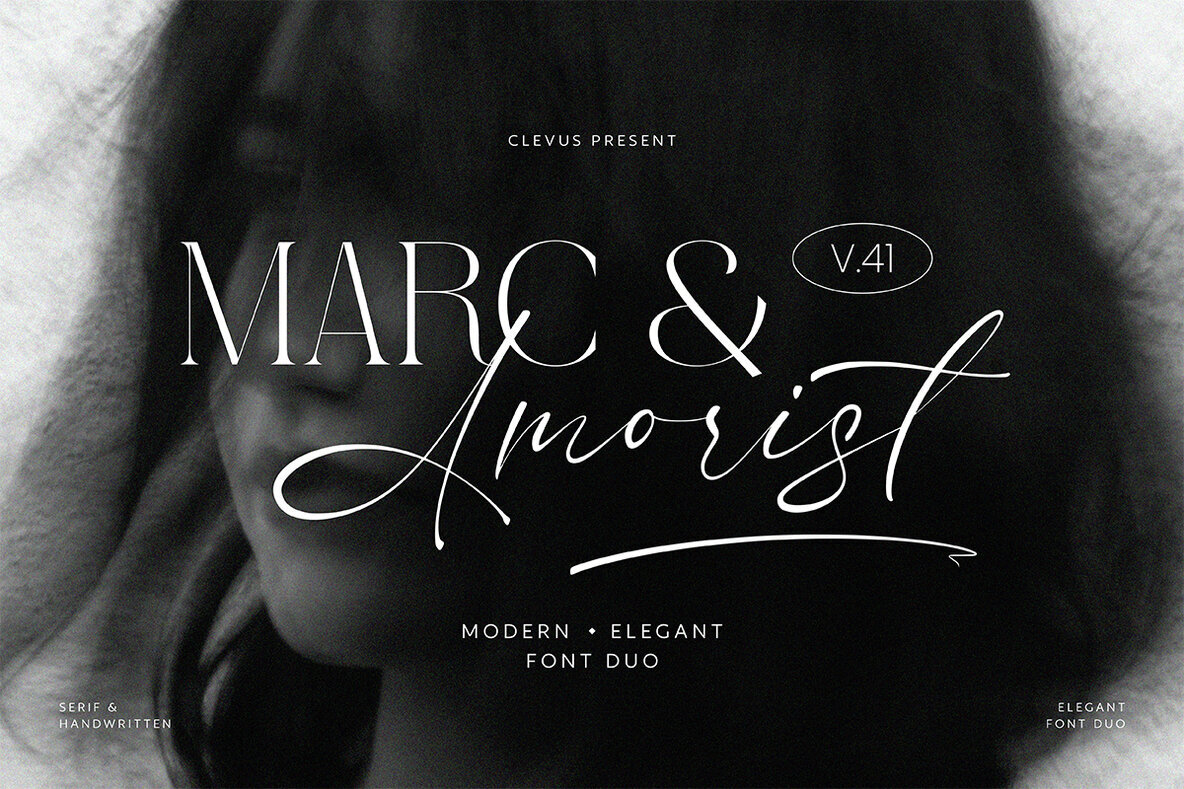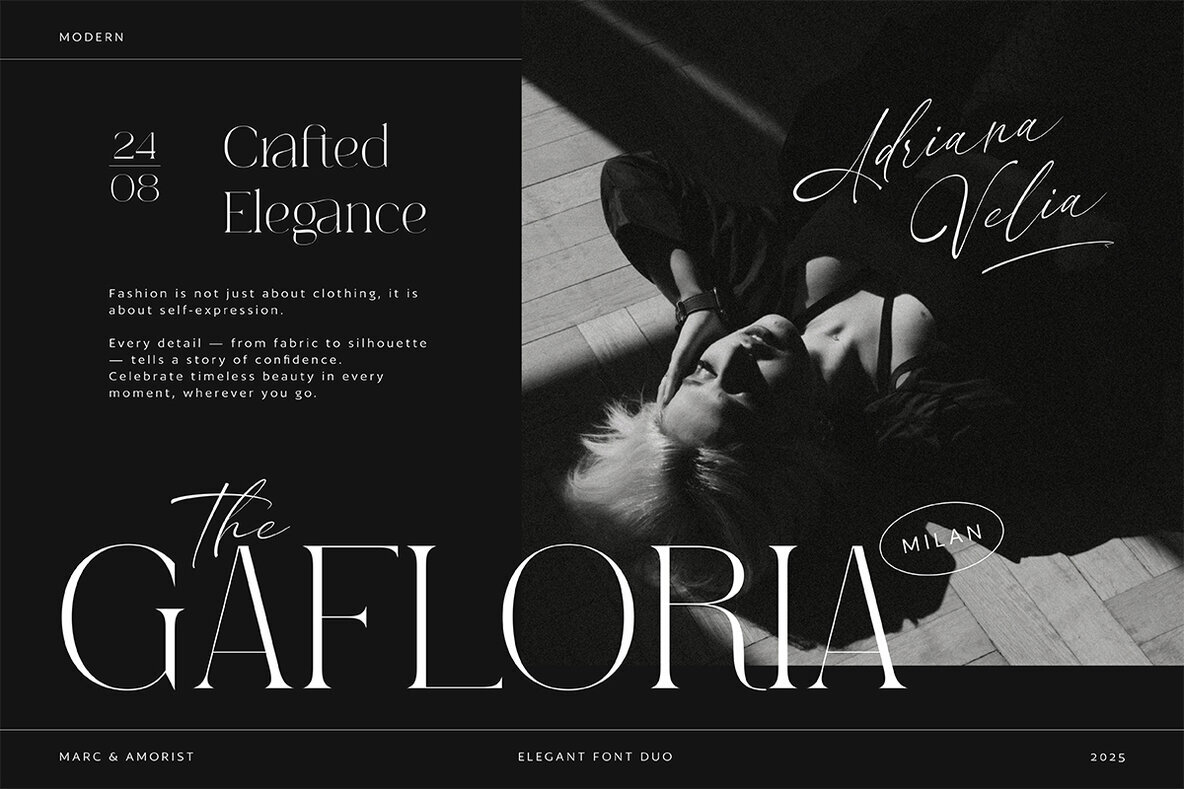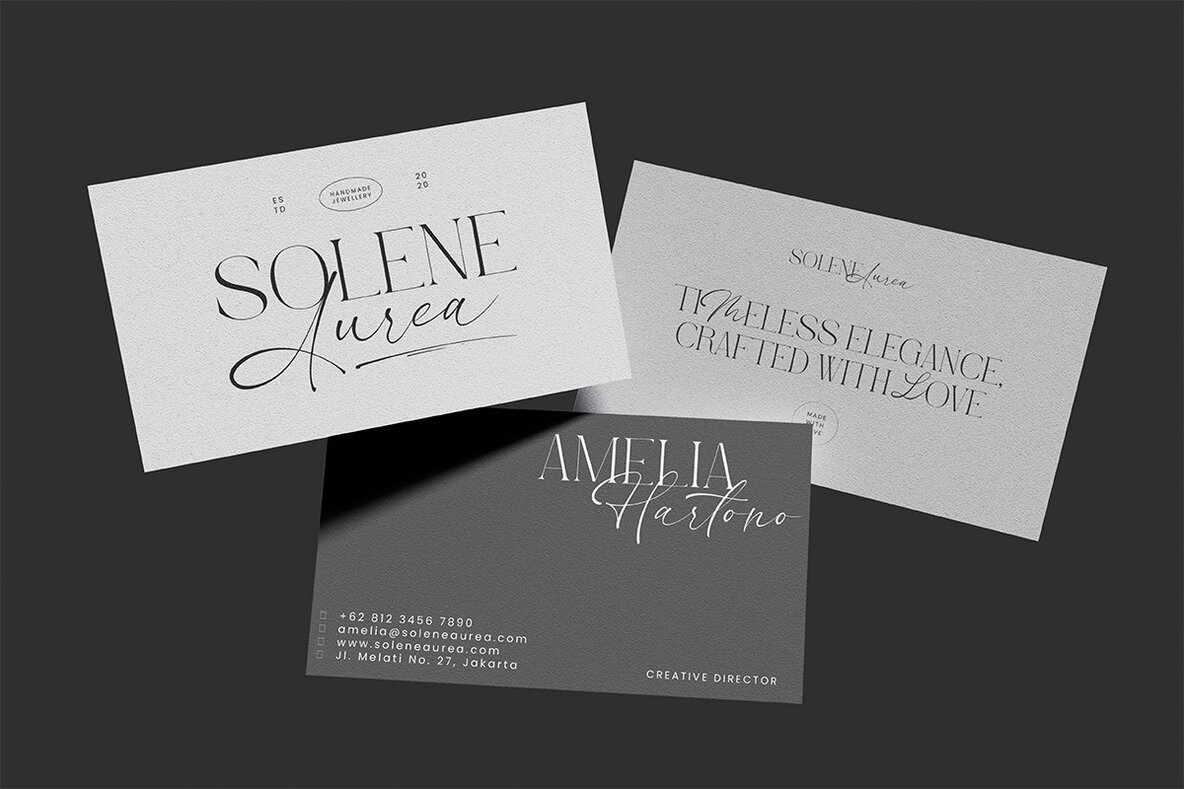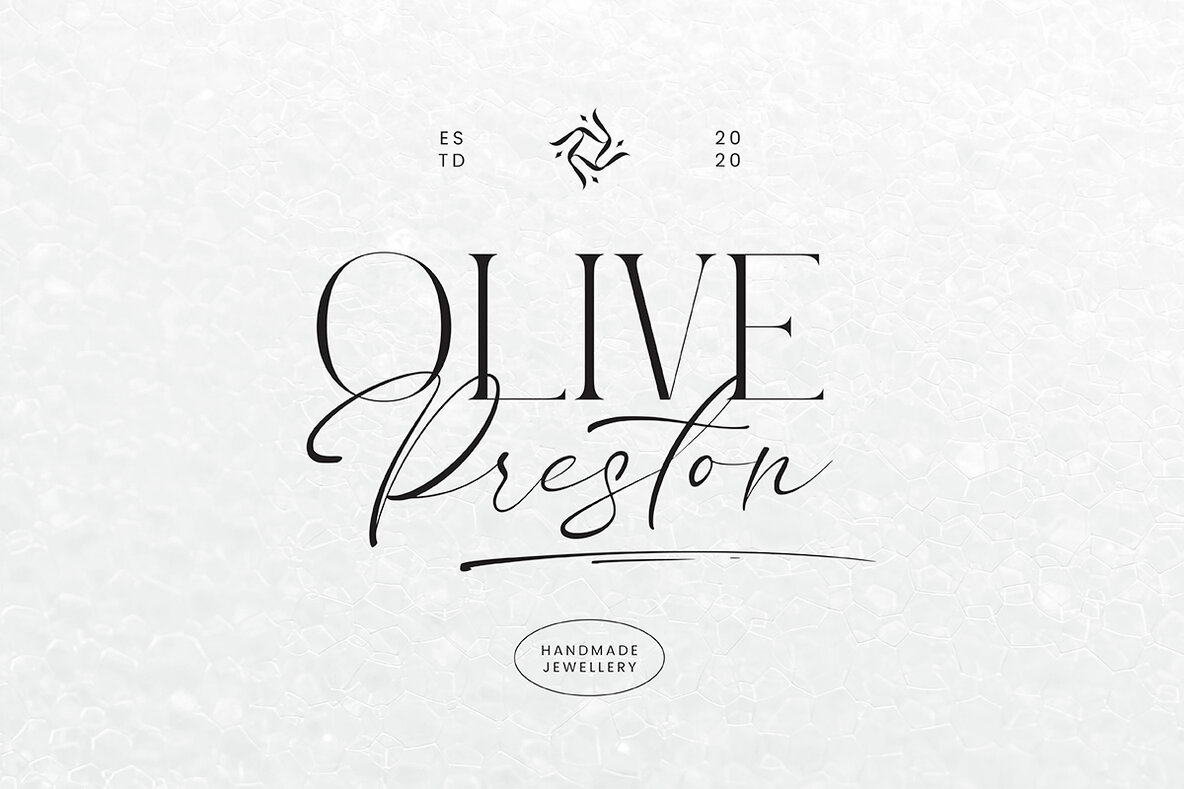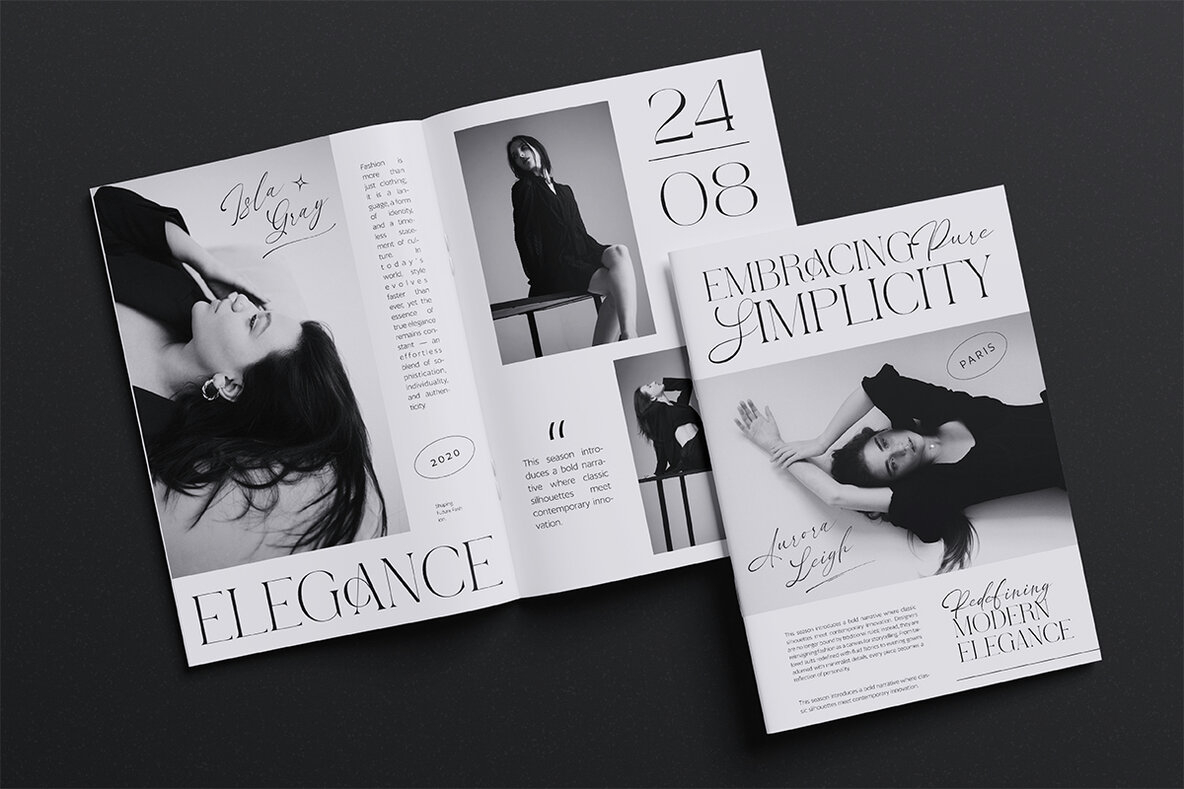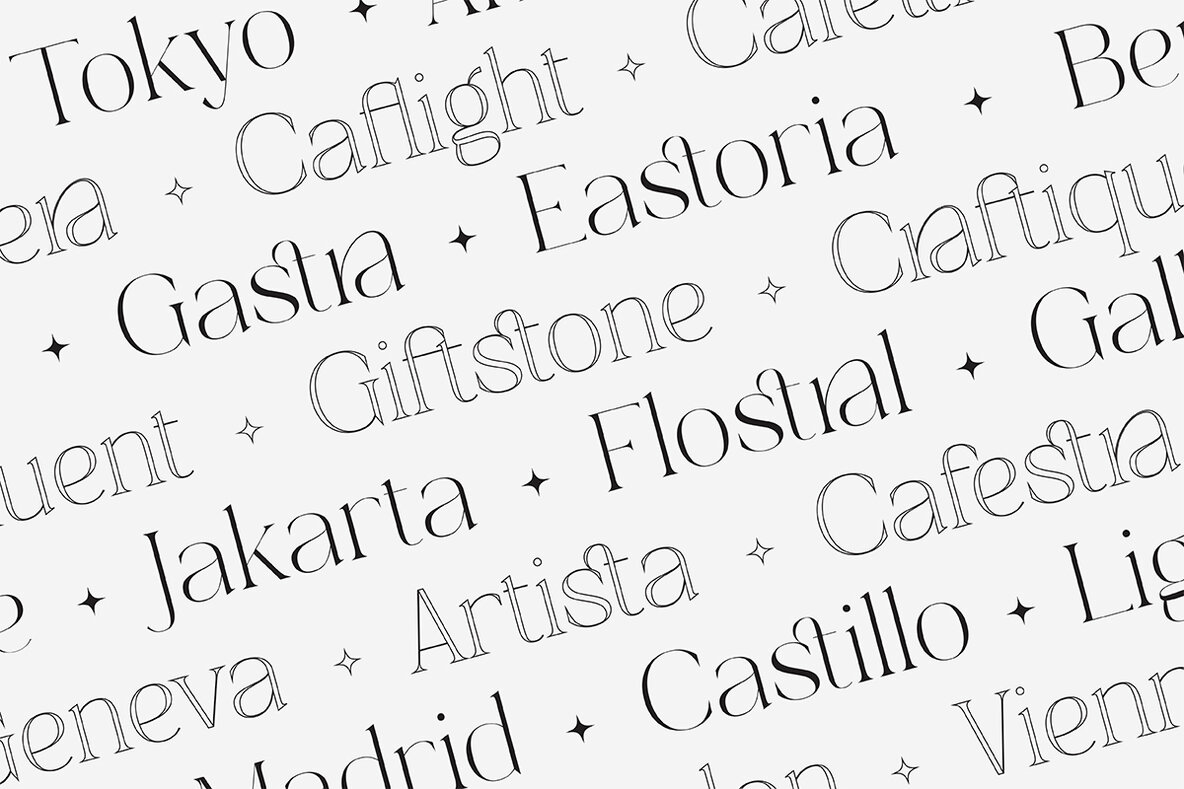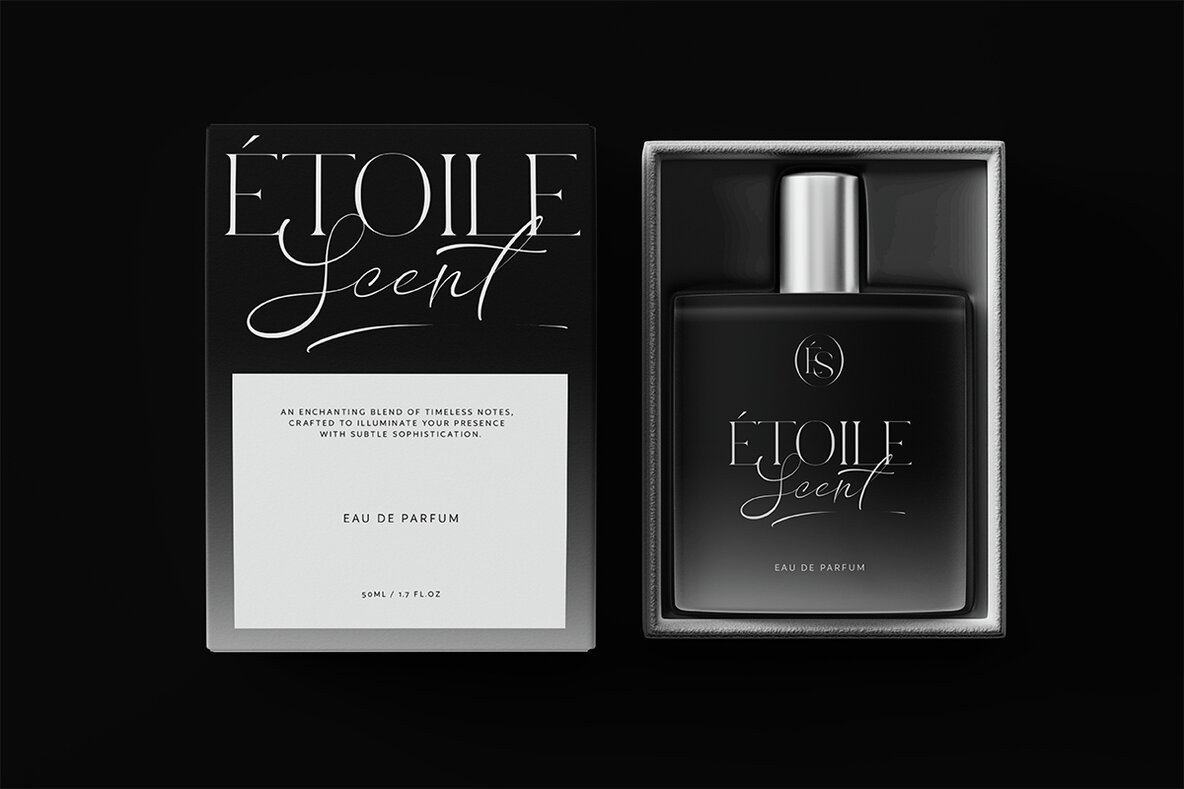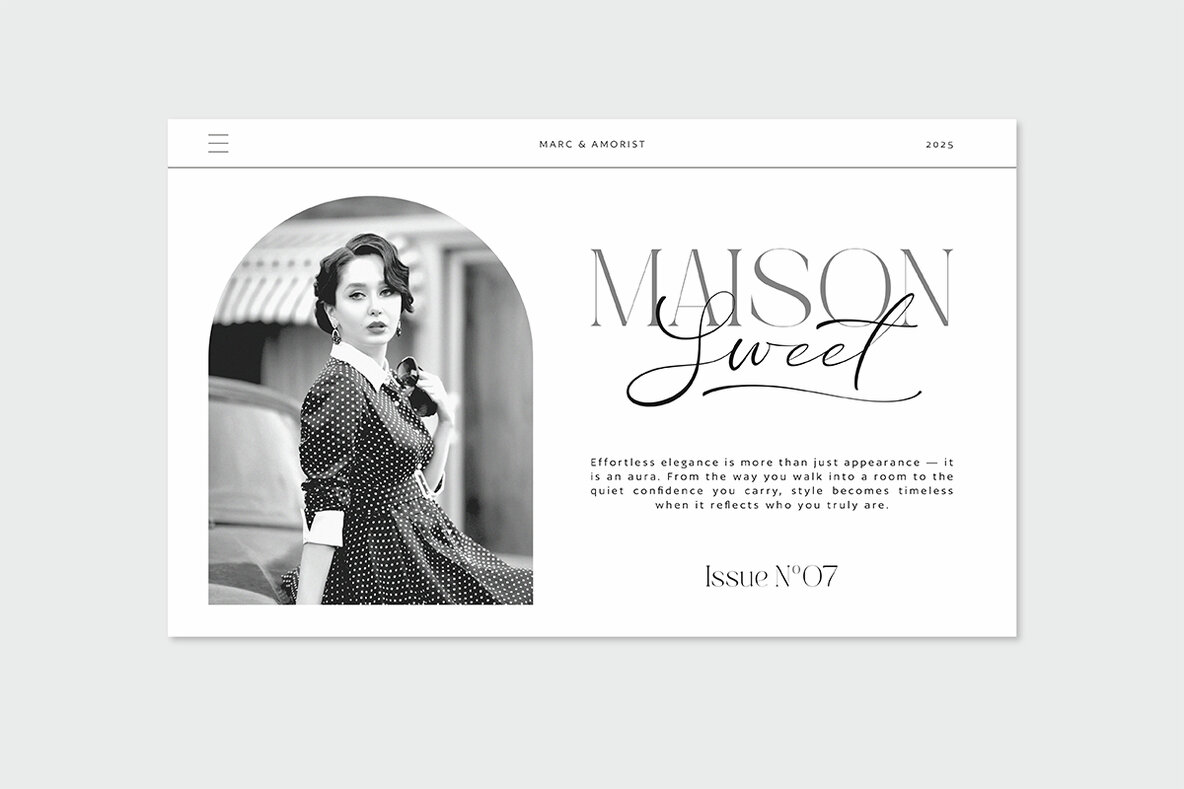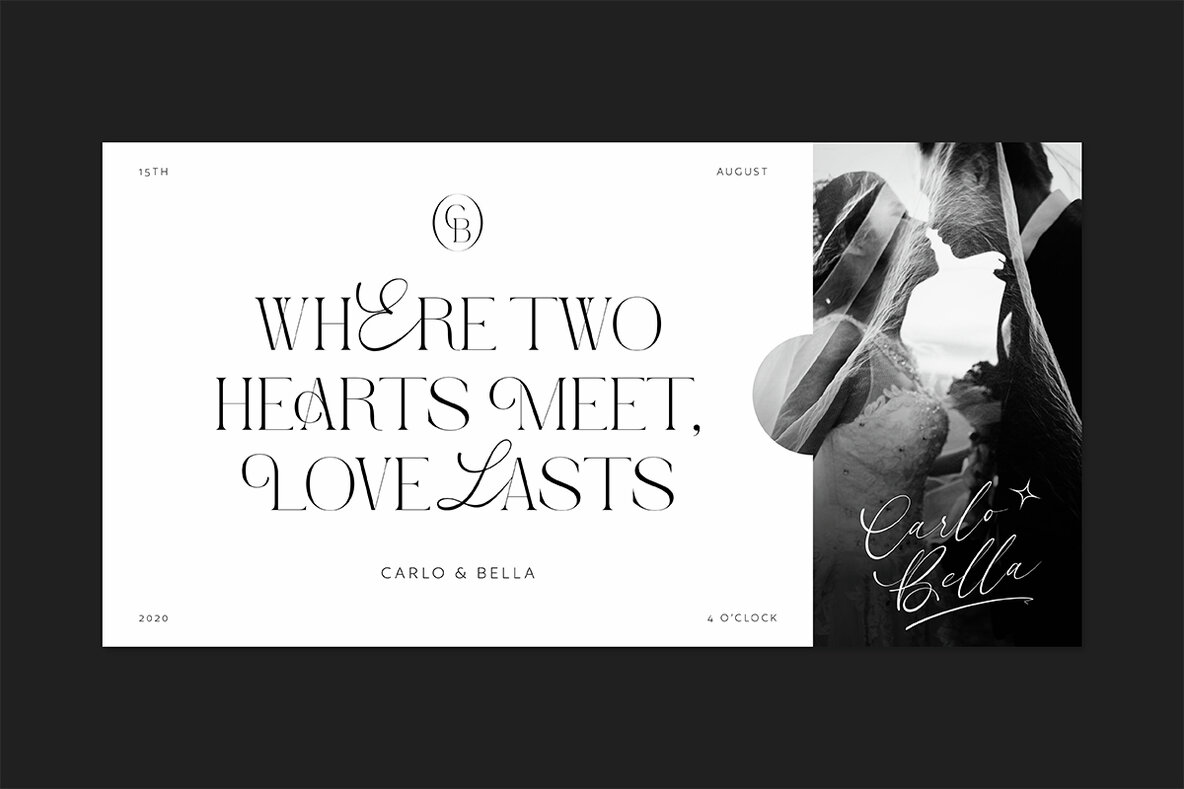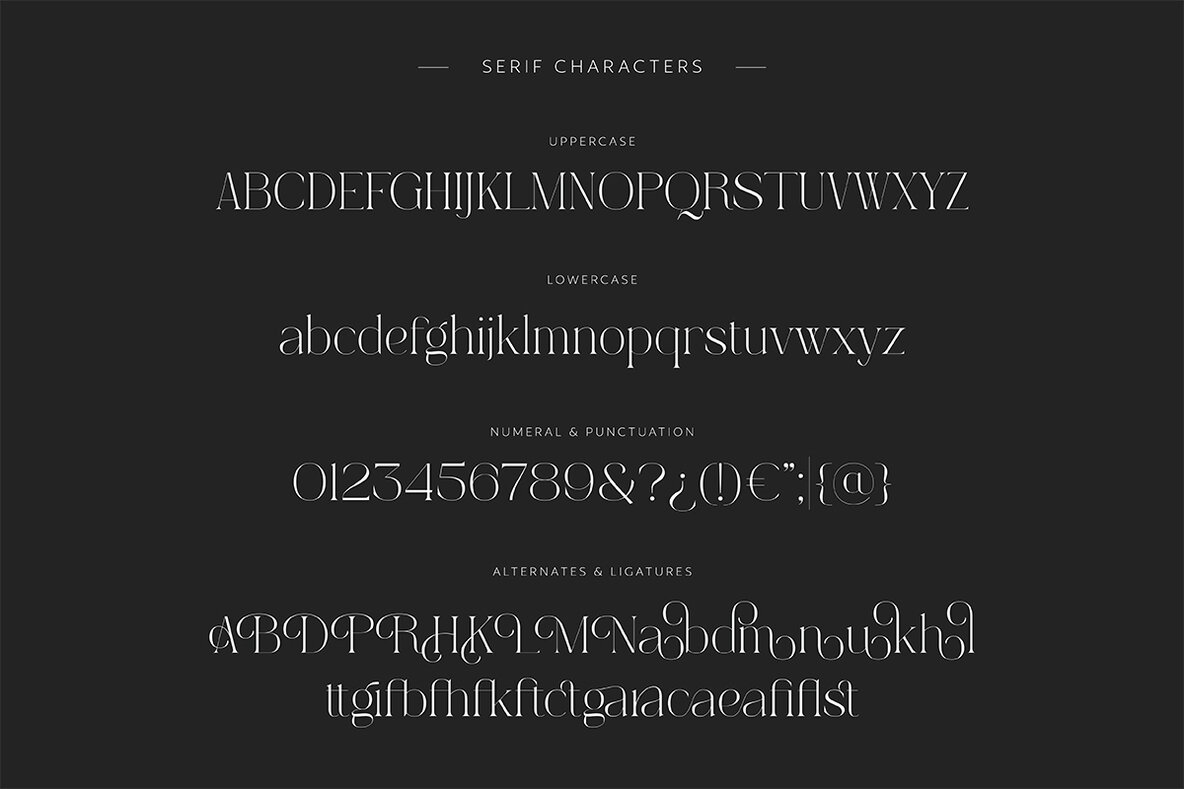
Marc Amorist Font
Discover the Marc & Amorist Font Duo, a distinctive combination of a sophisticated serif and a graceful handwritten script. This font pair seamlessly marries classic elegance with a personal touch, making it an ideal choice for projects that demand a feminine and refined aesthetic. Perfect for magazines, books, posters, and branding materials, Marc & Amorist ensures that your designs are infused with timeless charm and modern flair. Enhance your design portfolio with Marc & Amorist. Its versatility and character elevate ordinary layouts into professional masterpieces—without the hassle. Keep an eye out for future updates, promising additional glyphs and expanded language support.Marc & Amorist Font Duo: Elegance in Every Letter
Versatile Design Features